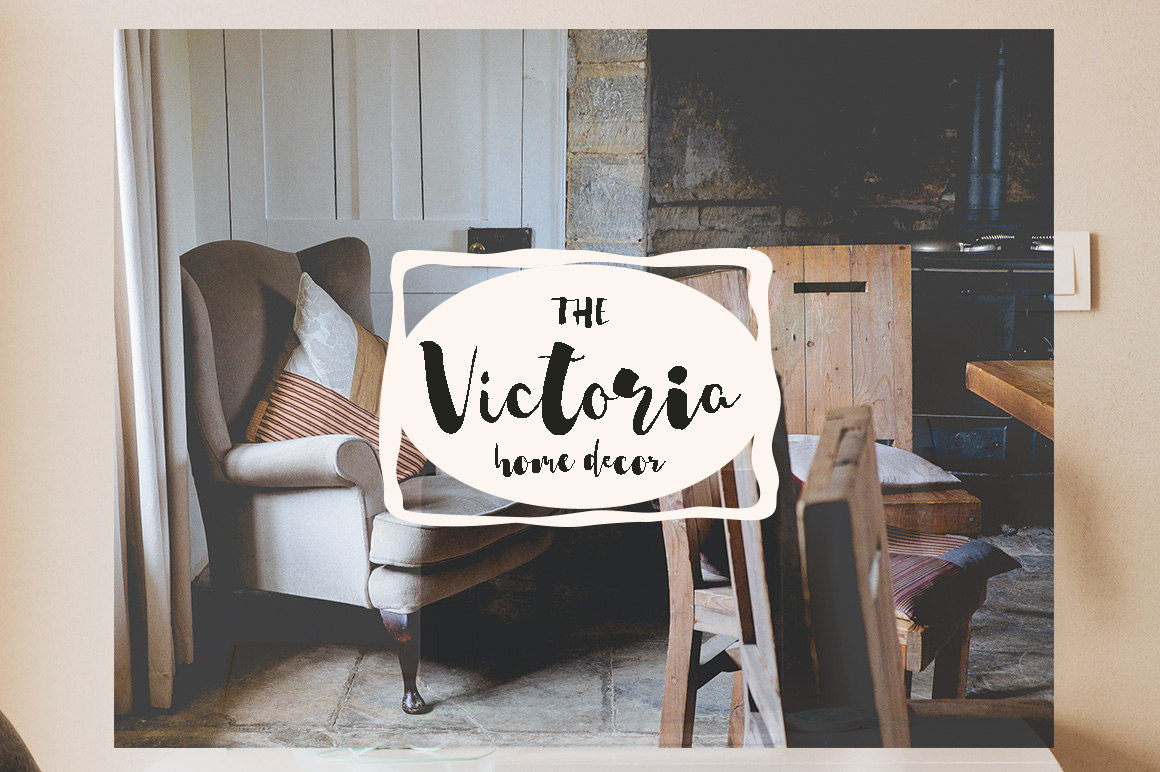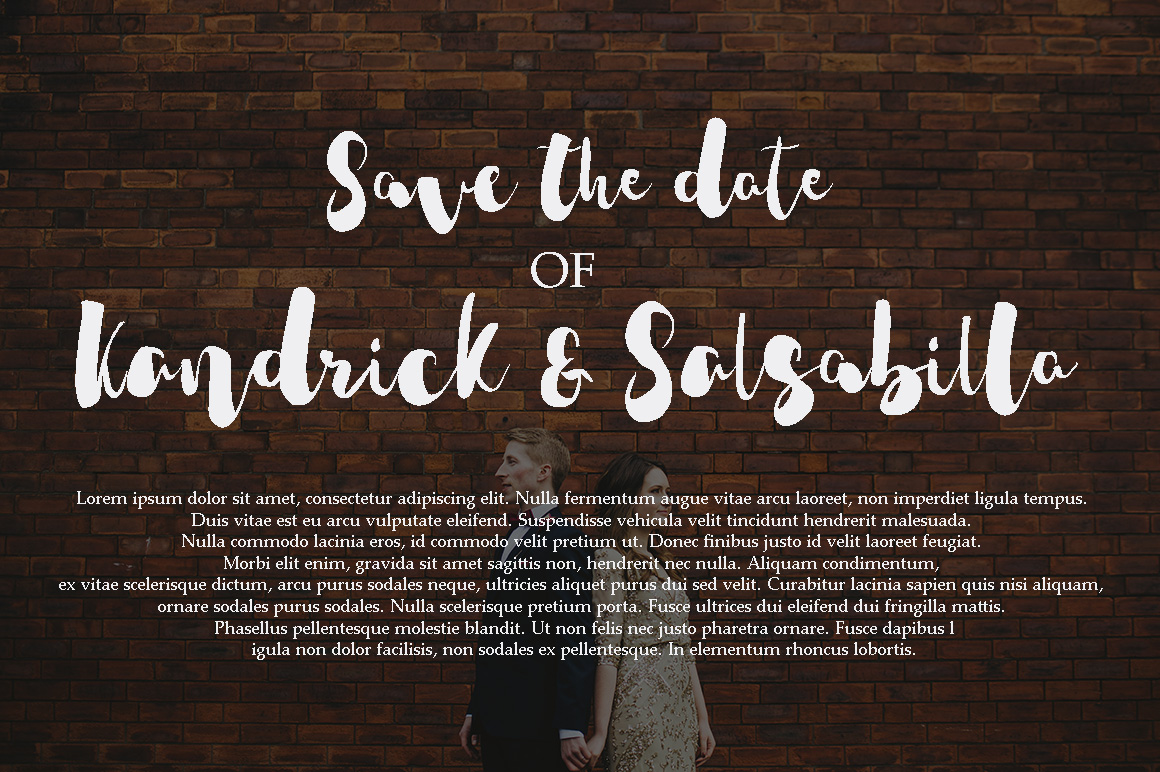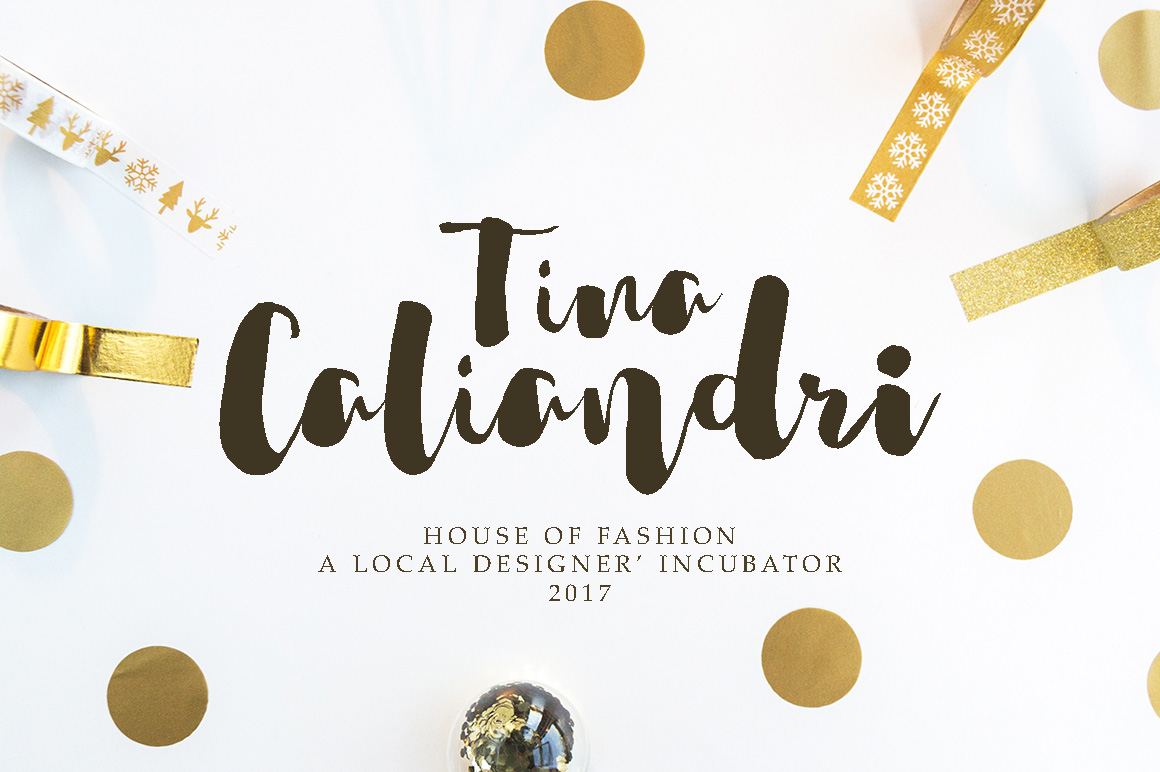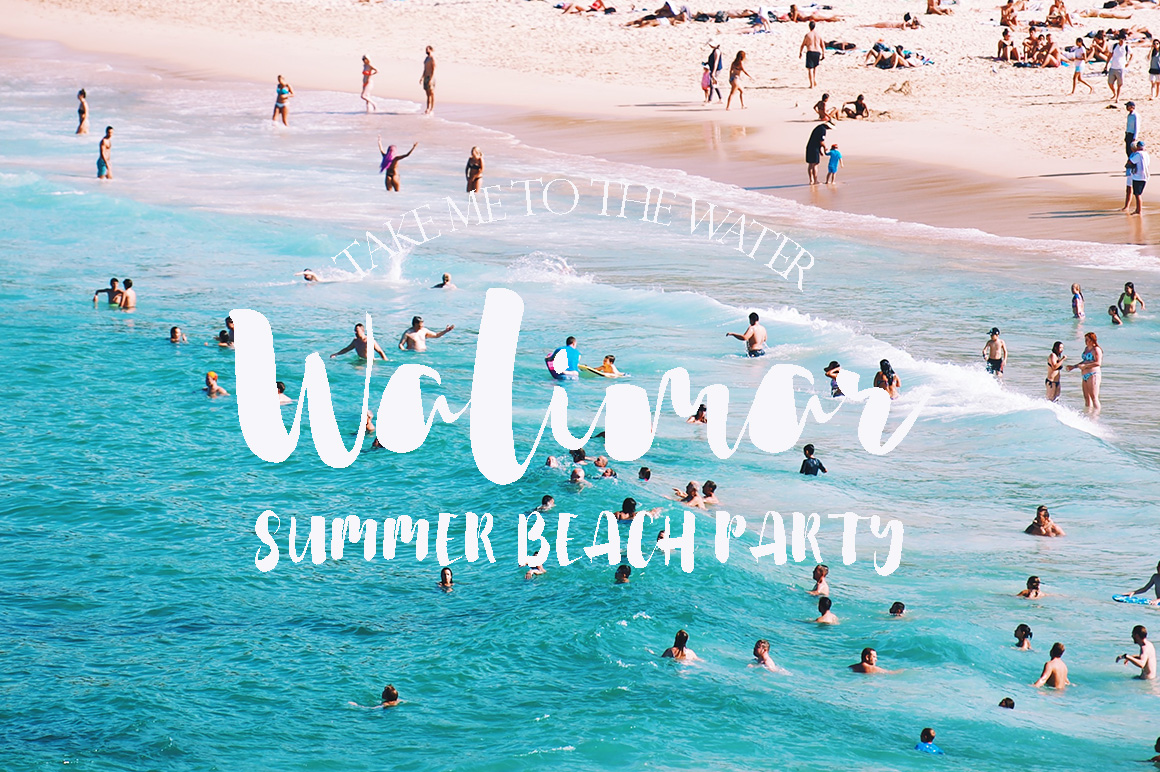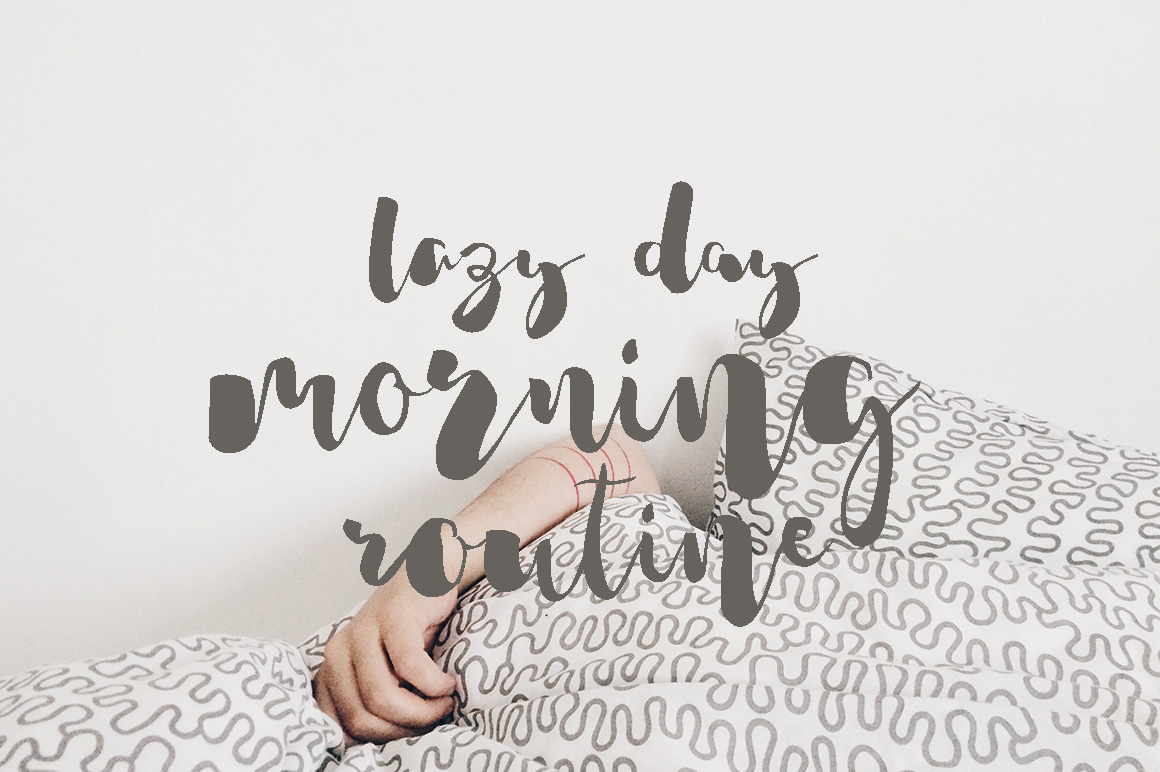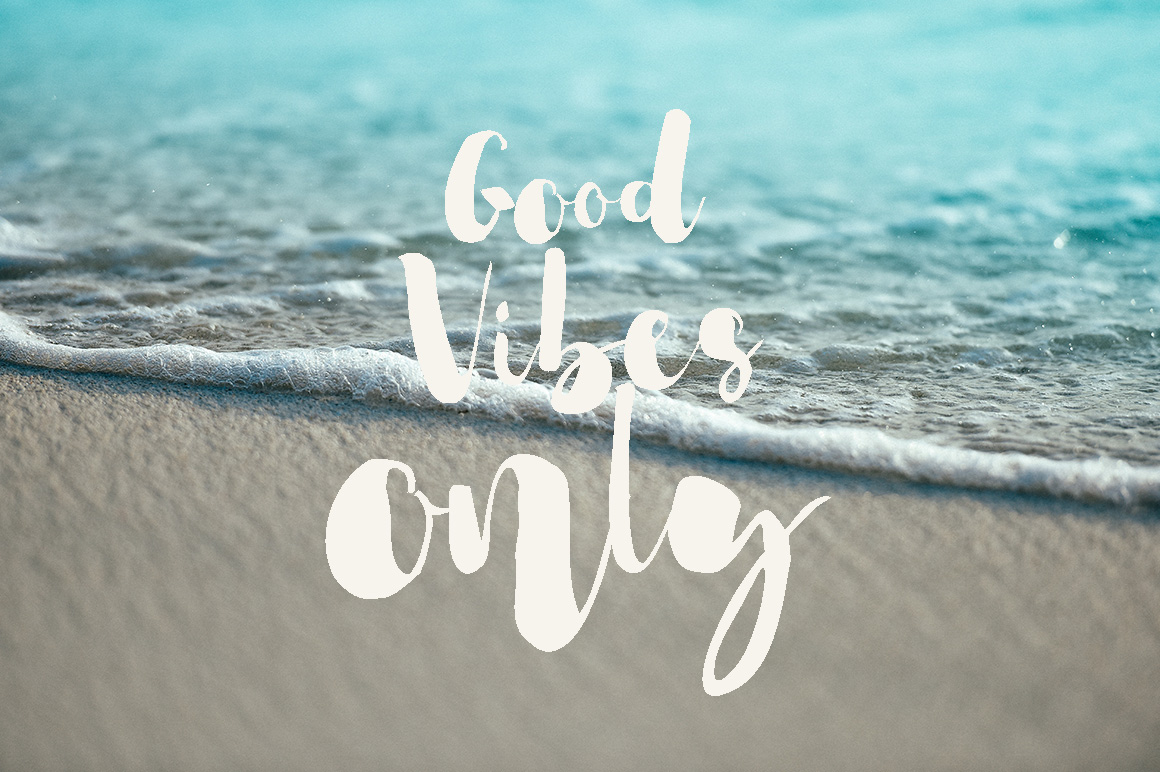
Introduction to Haruki Primadonha Font
Have you ever been working on a creative project and struggled to find the perfect font to match your vision? We’ve all been there – scouring the internet for hours, trying out different designs, and hoping to stumble upon that one font that brings everything together. But what if I told you that you might not have to search anymore?
Enter the Haruki Primadonha Font, a stunning modern script that’s sure to elevate your design game. With its sleek lines, elegant curves, and high-quality design, this font is a valuable resource for any designer looking to add a touch of sophistication to their work. And the best part? It’s available for free download, making it an accessible design resource for creatives of all levels.
Whether you’re working on a branding project, a wedding invitation, or a social media graphic, the Haruki Primadonha Font is sure to provide the perfect finishing touch. Its transparent background and versatile design make it a versatile tool for any design project, and its high-quality design ensures that your work will stand out from the crowd.
Key Features of Haruki Primadonha Font
- Unique, elegant design perfect for creative projects and design resources.
- High-quality font with a transparent background, ideal for use on various backgrounds.
- Characteristics include a mix of modern and traditional elements, making it suitable for a wide range of design applications.
- Can be easily customized and edited for specific design needs, making it a valuable resource for designers.
Honest Review: Haruki Primadonha Font
I recently had the chance to work with the Haruki Primadonha Font, and I must say, it’s been a game-changer for my creative projects. As a designer, I’m always on the lookout for high-quality design resources that can elevate my work, and this font definitely delivers.
Here are some things that I think work particularly well:
- ✨ Unique aesthetic: The Haruki Primadonha Font has a distinctive, hand-drawn feel that adds a touch of elegance to any design.
- ✨ High-quality graphics: The font is available in a range of weights and styles, making it perfect for a variety of creative projects.
However, there are a few limitations to be aware of:
- ⚠️ Limited language support: The font may not support all languages, which could be a problem for designers working on international projects.
- ⚠️ No transparent background: Some designers may find the solid background of the font to be a limitation, especially when working on projects that require a transparent background.
Overall, I’m really impressed with the Haruki Primadonha Font. While it may have a few limitations, its unique aesthetic and high-quality graphics make it a valuable addition to any designer’s toolkit.
The Haruki Primadonha Font is ideal for:
1. Graphic design and digital art projects.
2. Creating high-quality typography and text-based designs.